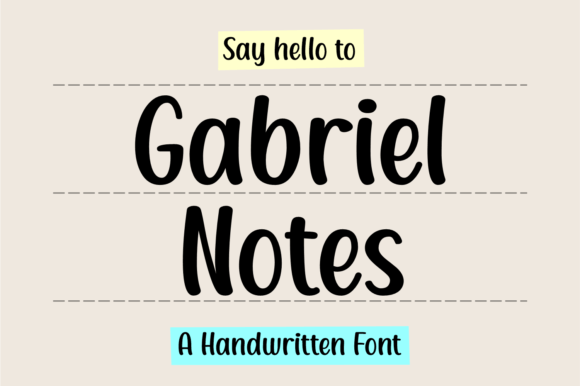
Unleash the Power of Expression with Gabriel Notes Font: A Journey Through Timeless Elegance and Playful Charm
In a world saturated with monotonous and conventional fonts, Gabriel Notes emerges as a breath of fresh air, a symphony of creativity that resonates with the spirit of individuality. This enchanting script font, meticulously crafted by the visionary Rian of 7NTypes, embodies the essence of playfulness and authenticity, evoking a sense of nostalgia and childlike wonder.
Gabriel Notes is a captivating dance of curves and strokes, each letter a unique masterpiece that harmonizes perfectly with the next. Its unassuming charm and casual elegance lend a touch of warmth and personality to any design, transforming ordinary words into heartfelt messages and captivating expressions.
Step into a world where imagination knows no bounds, where the boundaries of creativity dissolve, and where your designs take on a life of their own. Gabriel Notes is your passport to this extraordinary realm, a font that grants you the power to weave tales of adventure, ignite sparks of joy, and capture the essence of life's most cherished moments.
With Gabriel Notes, every project becomes a canvas upon which you can paint your creative dreams. Its versatility knows no limits, adapting seamlessly to a symphony of design possibilities. From whimsical children's books to heartfelt love letters, from retro-inspired posters to elegant wedding invitations, Gabriel Notes becomes an extension of your creative spirit, whispering stories and evoking emotions with every stroke.
Embrace the magic of Gabriel Notes, a font that sparks imagination, ignites creativity, and leaves an indelible mark on the hearts of those who behold it. Let your designs blossom with the beauty of Gabriel Notes, a font that embodies the essence of timeless elegance and playful charm.